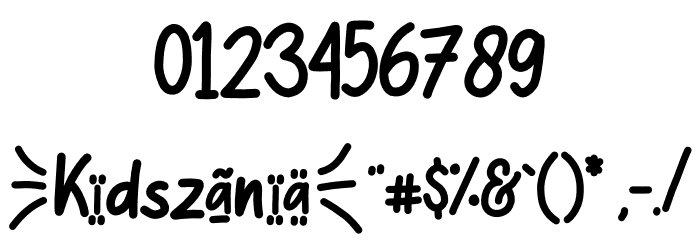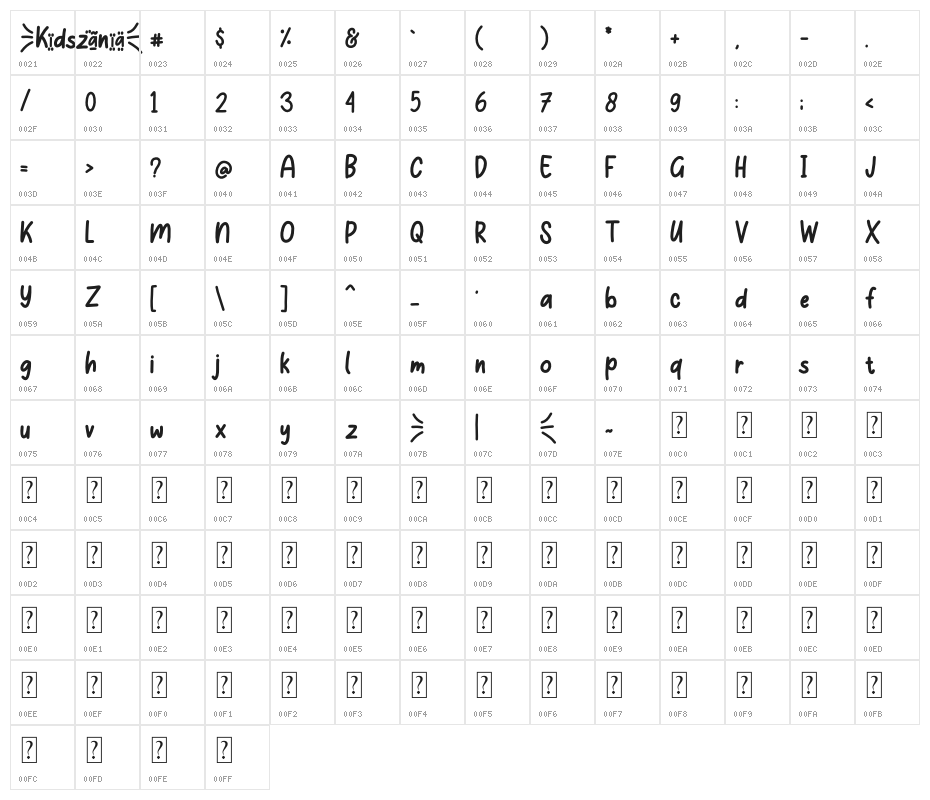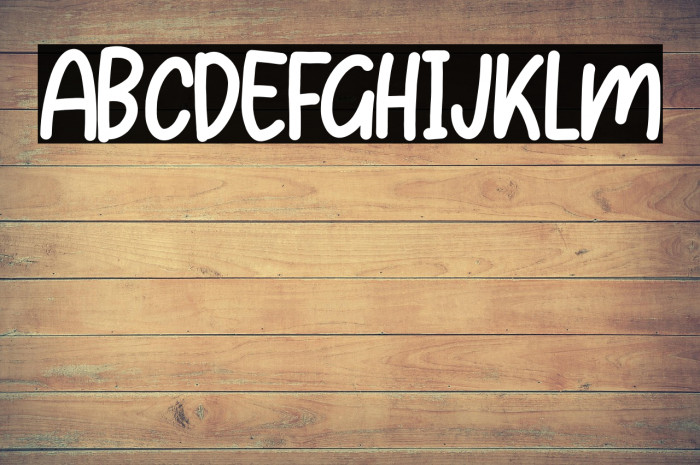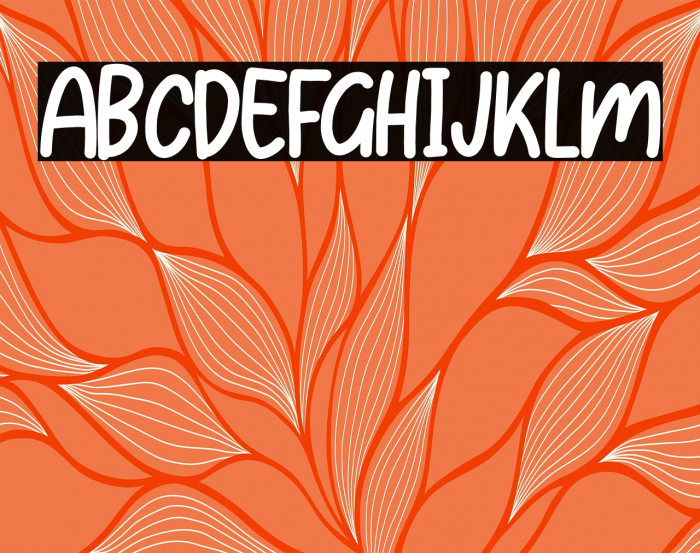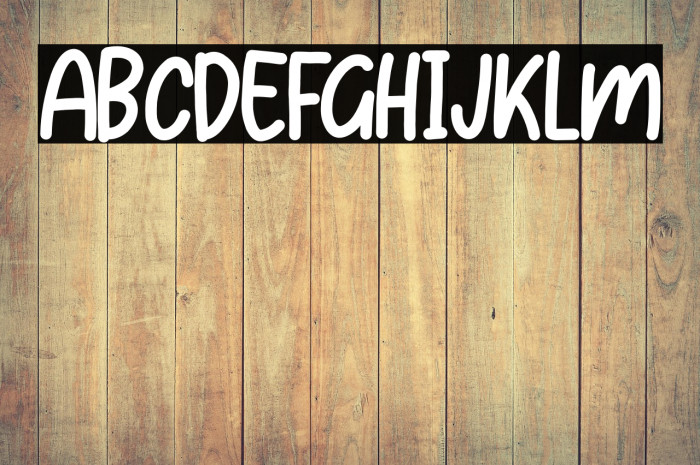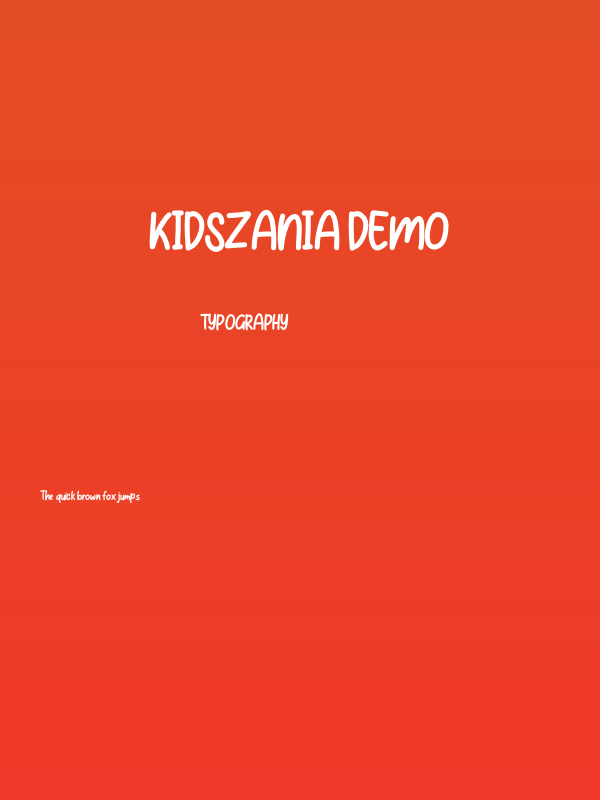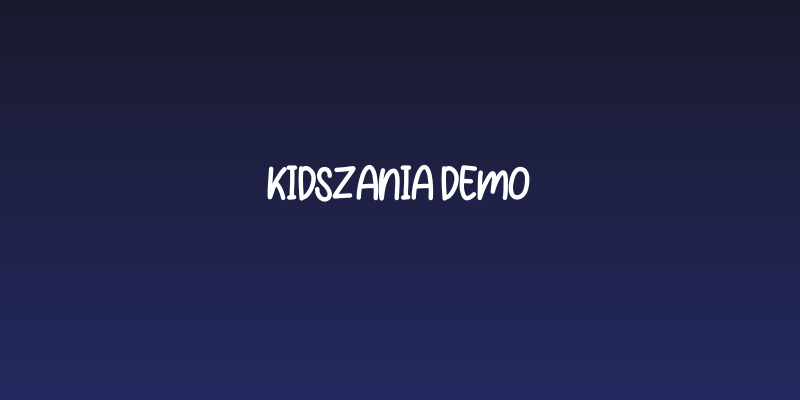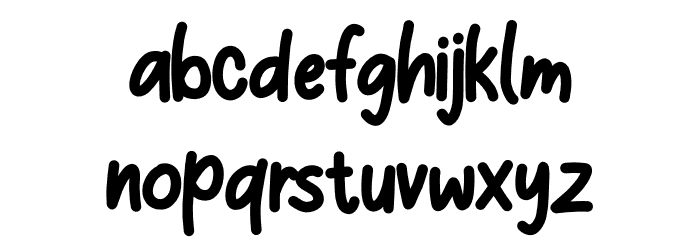
KIDSZANIA DEMO Font
This playful and energetic font features rounded, bold characters with a hand-drawn appearance. The letters have a consistent stroke width, giving them a uniform look while maintaining a casual and friendly vibe. The uppercase and lowercase letters are distinct, with the lowercase having a slightly more whimsical style. Numbers and special characters are included, matching the overall playful aesthetic. The font is ideal for projects aimed at children or for creating a fun and informal atmosphere.